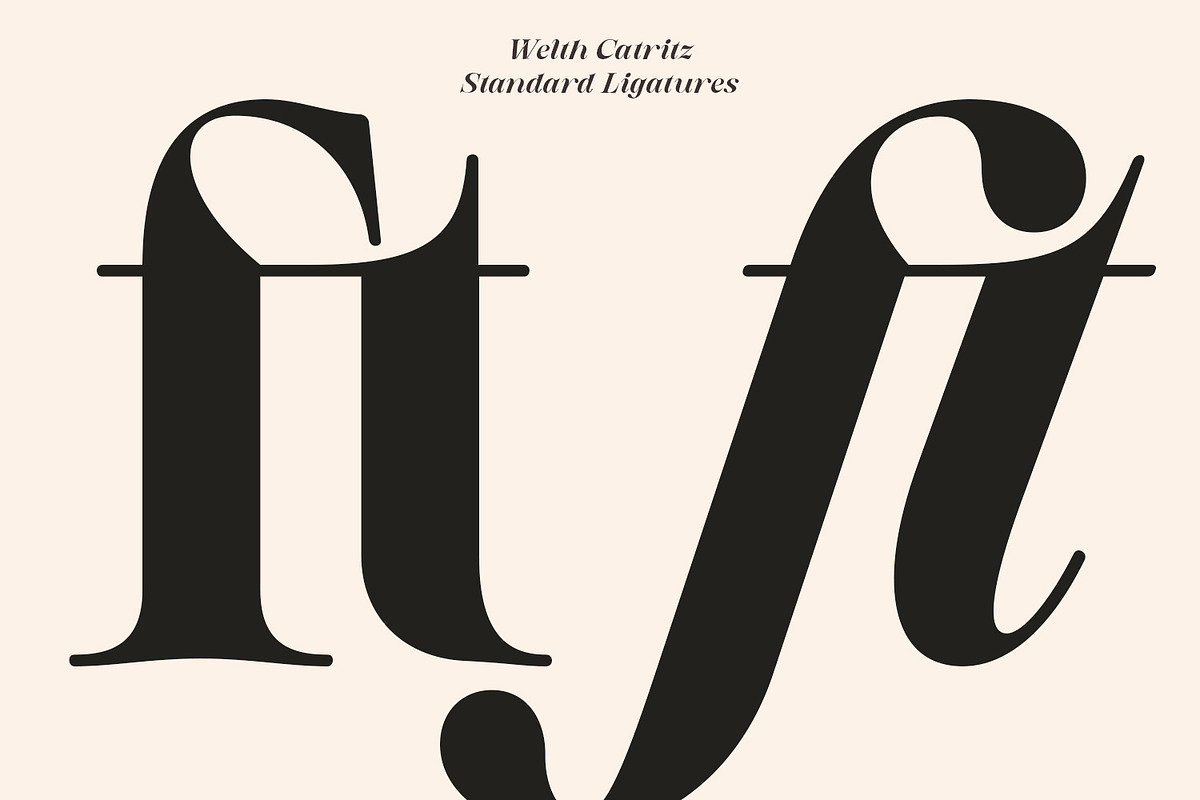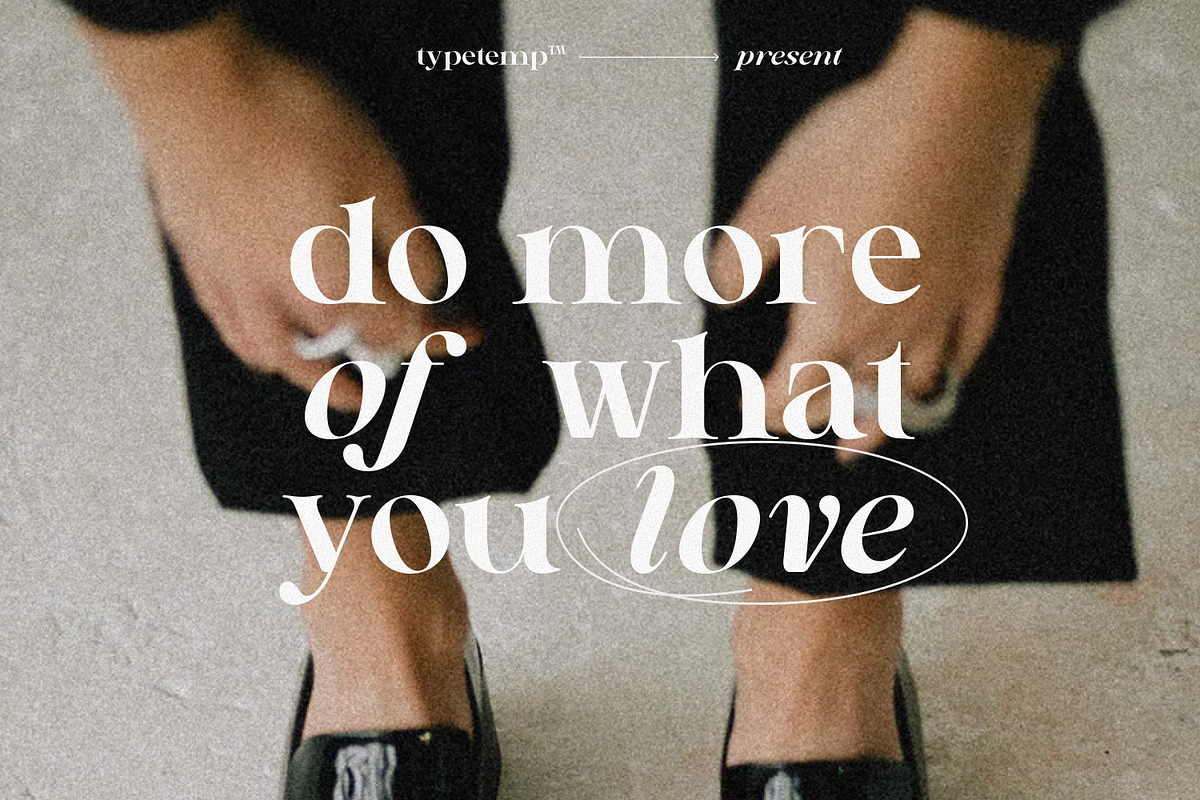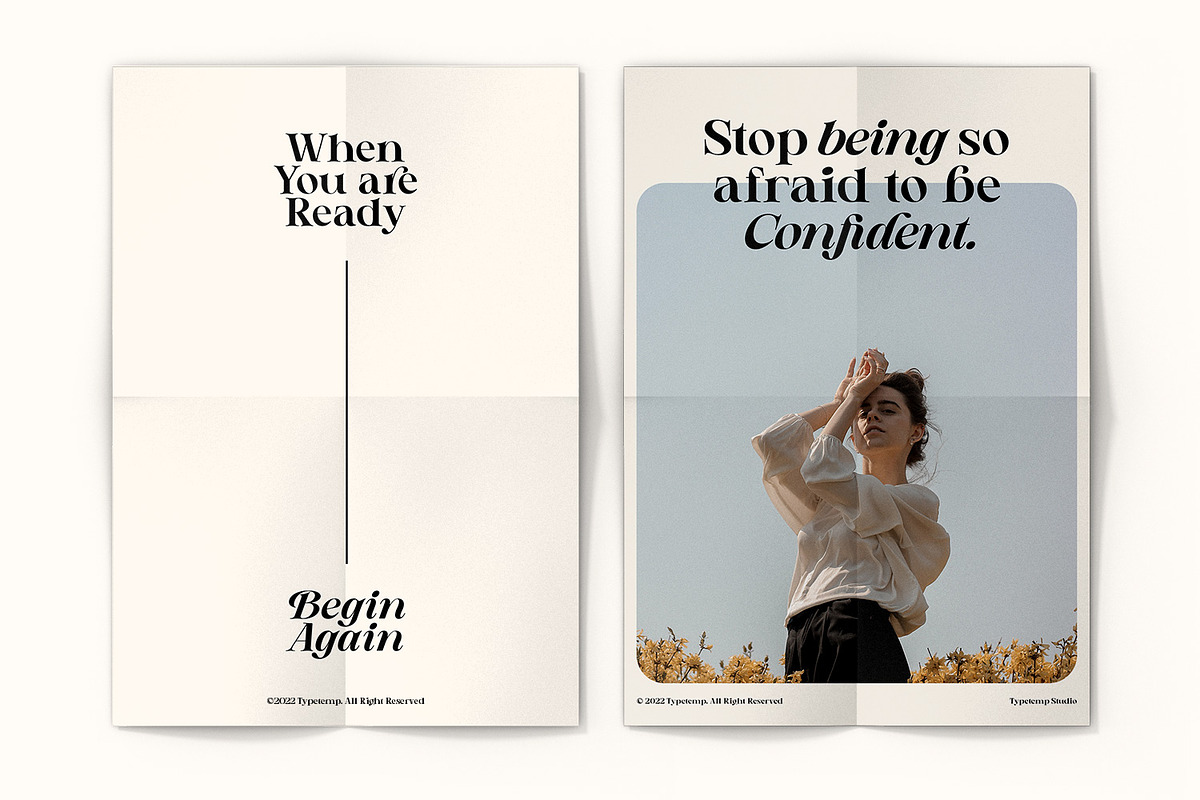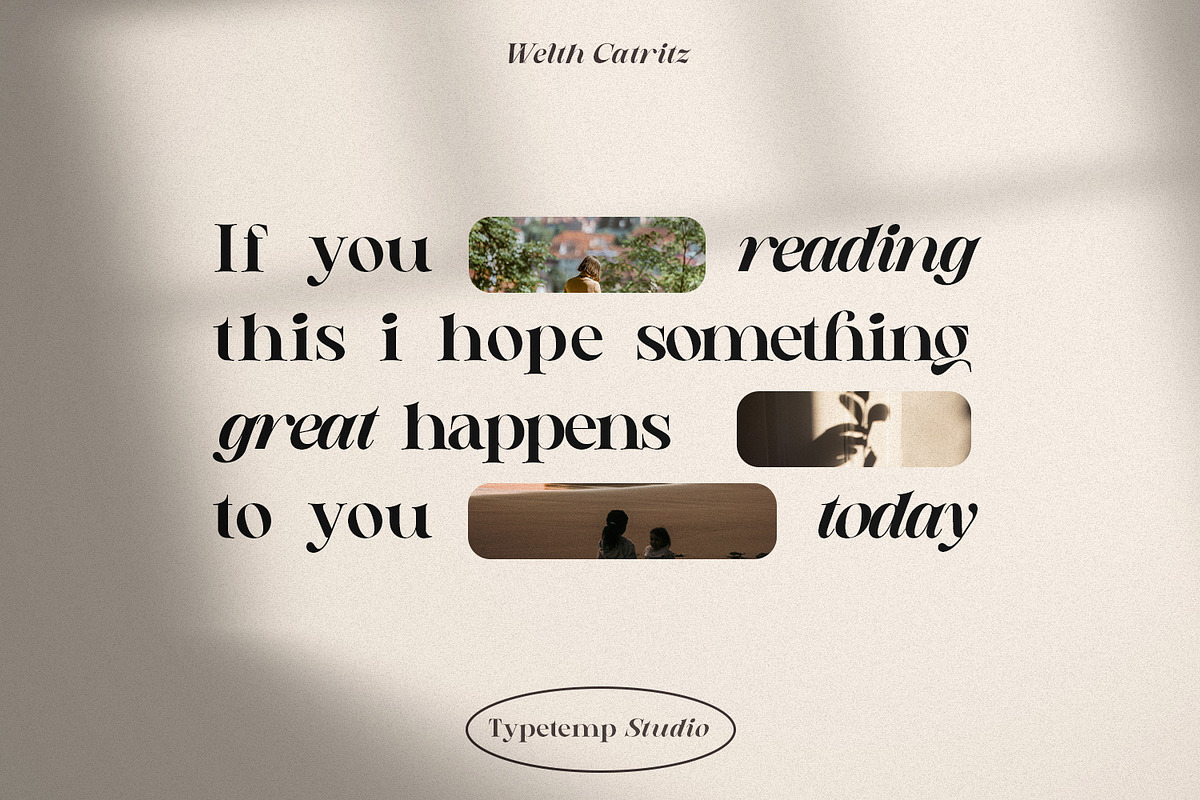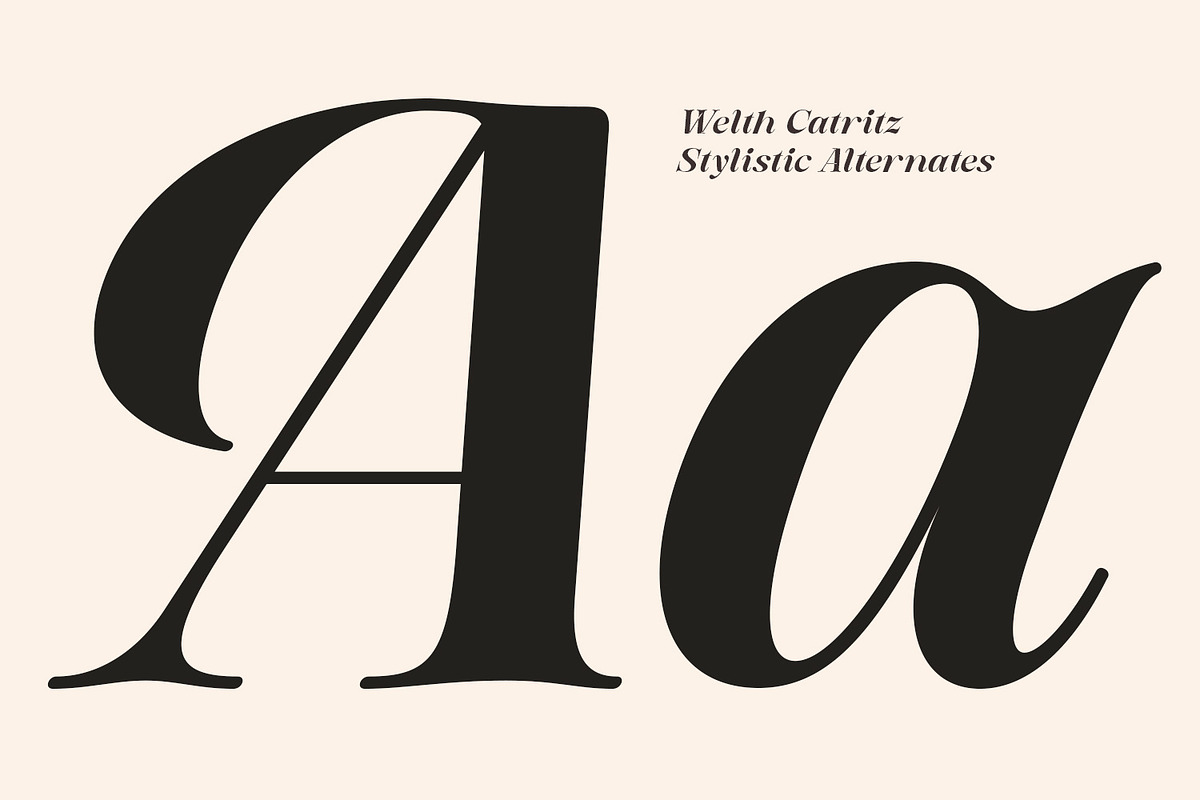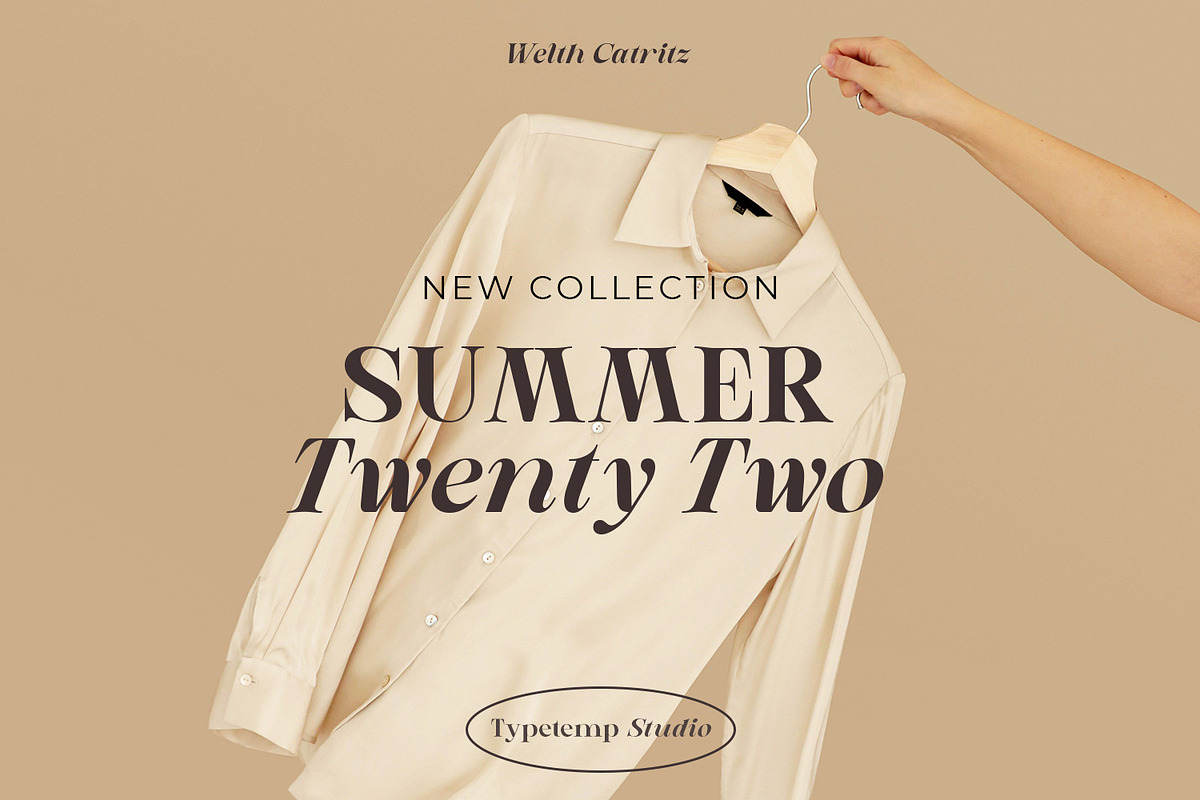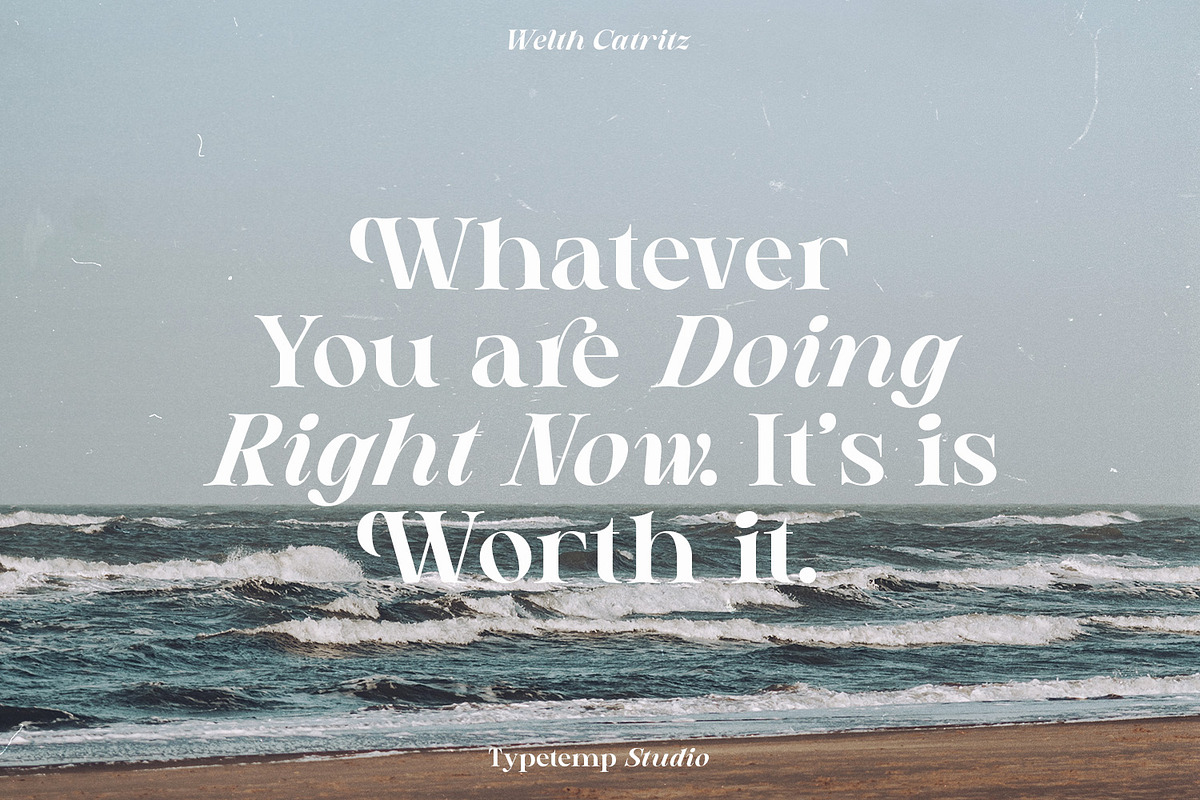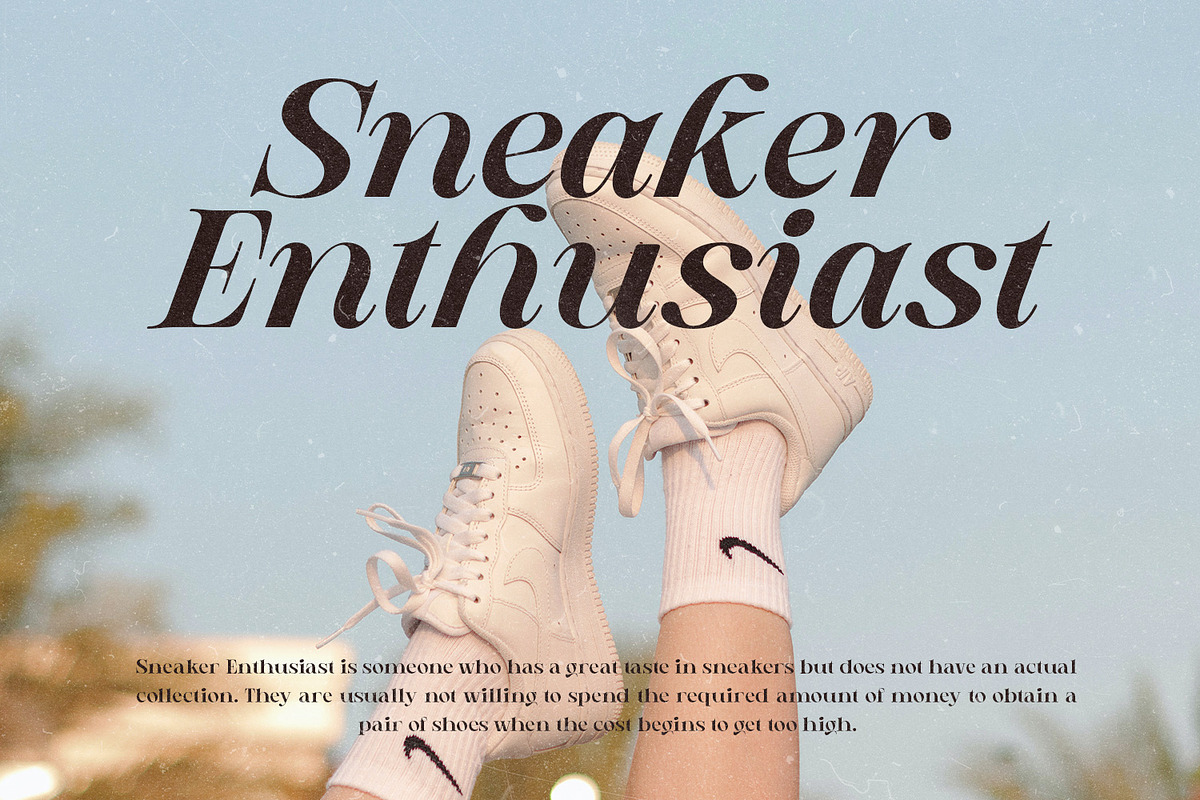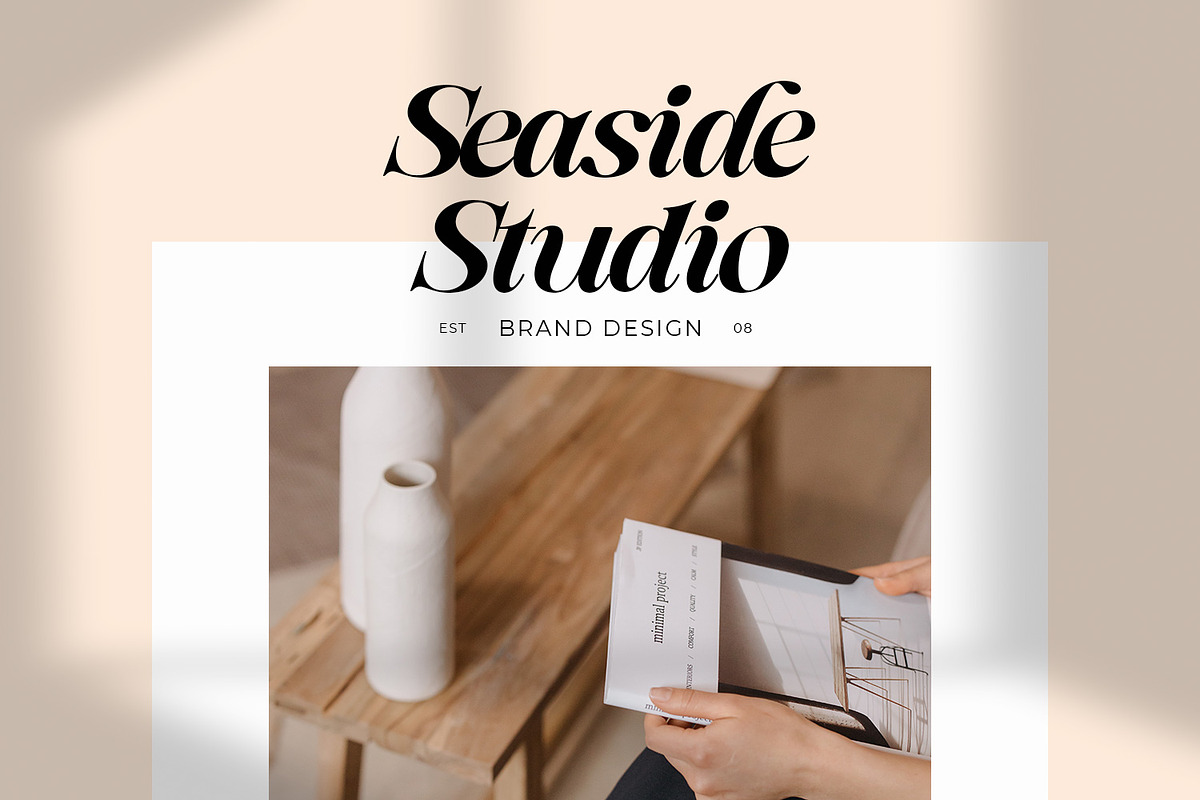
Welth Catritz - Classic Serif
The Welth Catritz is a stunning classic modern serif typeface presented by Typetemp Studio. Seamlessly blending traditional timeless structures with a contemporary high-fashion flair, this font family features both a solid, elegant Regular style and a dynamic, expressive Italic style. Its high-contrast letterforms and smooth, organic terminal curves make it a premier choice for adding luxury and artistic sophistication to your design layouts.
Two essential typographic styles: Regular and Italic.
Beautifully balanced high-contrast strokes and elegant modern serifs.
Excellent versatility for premium, minimalist, and editorial design frameworks.
Detailed Usage
Luxury Branding: An exceptional match for high-end beauty salons, elite architecture practices, premium lifestyle retreats, boutique hotels, and sophisticated corporate identities.
Product Packaging: Gracefully upgrades luxury skincare bottles, fine fragrance containers, gourmet food labels, artisanal candle packaging, and organic cosmetics.
Editorial Layouts: A top-tier choice for bold fashion magazine mastheads, lookbook headlines, luxury presentation slides, and elegant book cover title typography.
Digital Content: Elevates website landing pages, minimalist social media layouts, aesthetic presentation templates, and refined video title graphics.